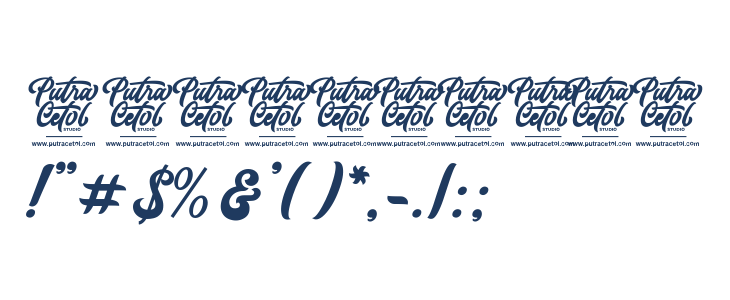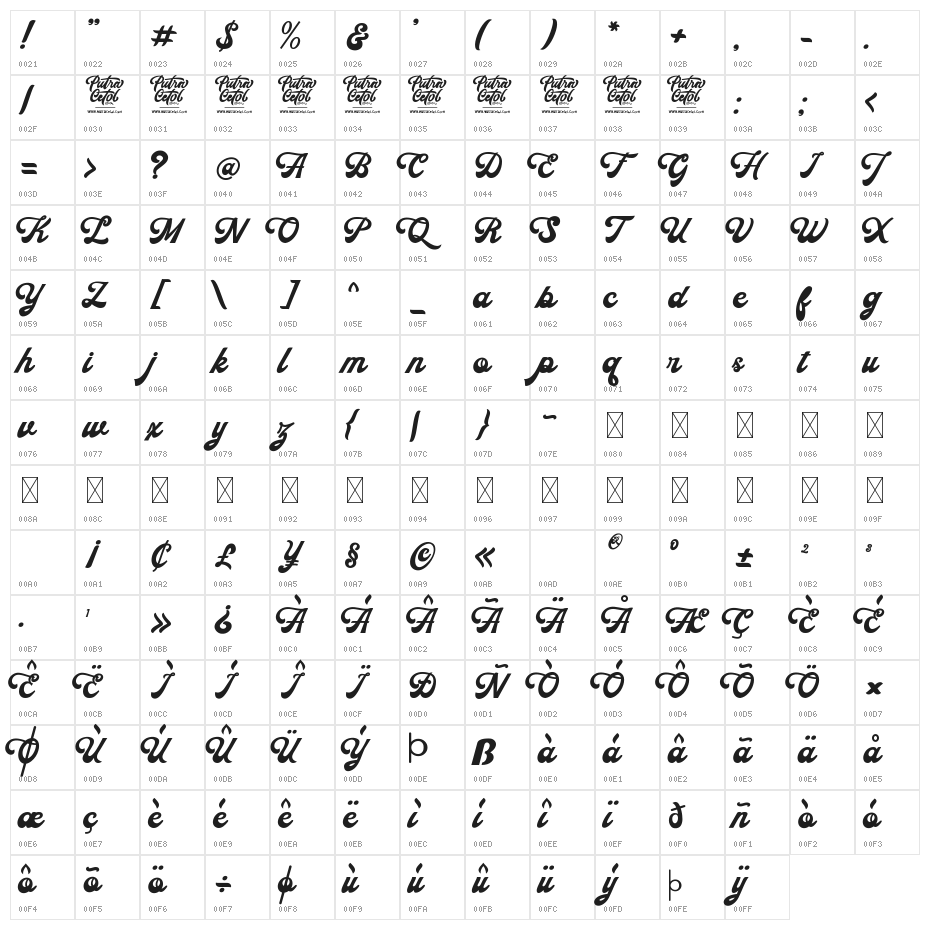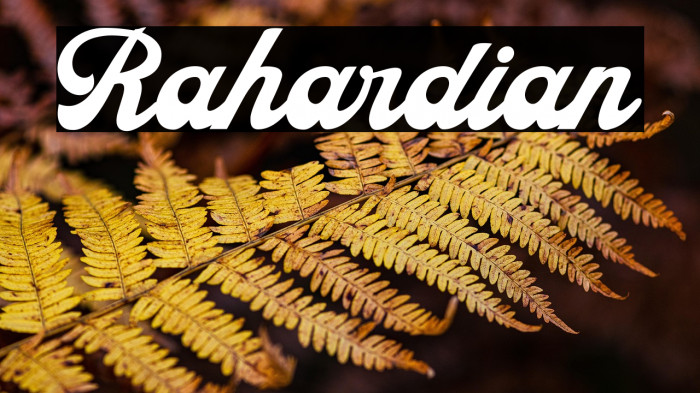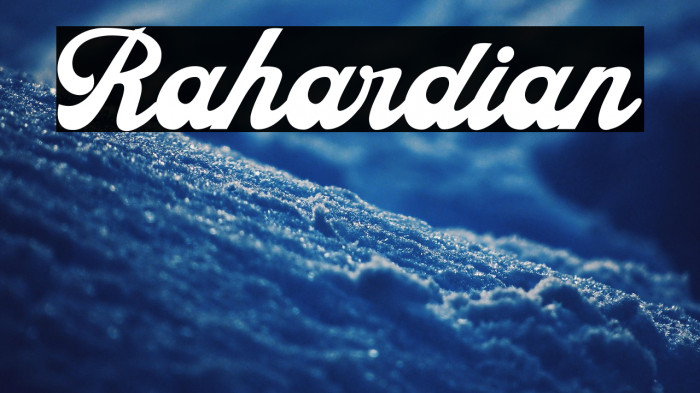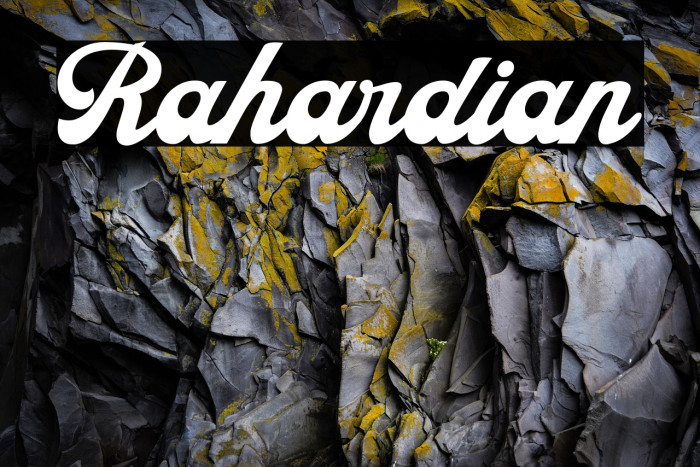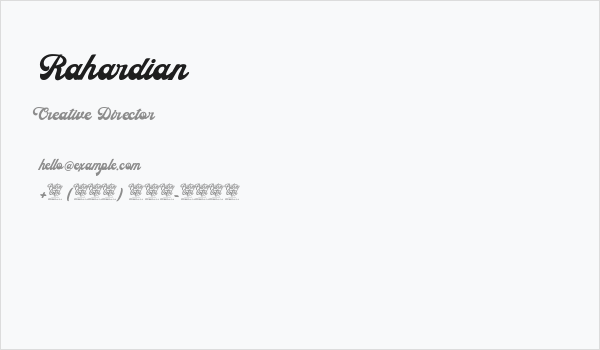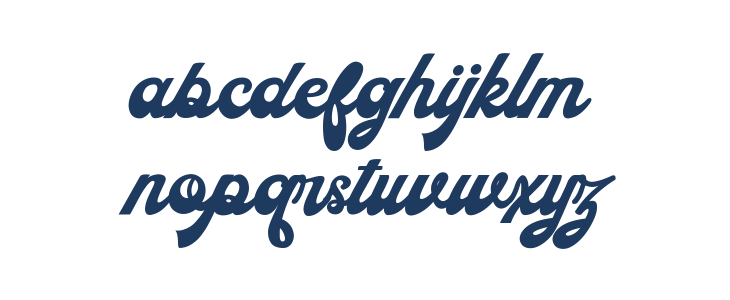
Rahardian Font
Rahardian Description
This font features a bold, cursive style with a strong emphasis on fluidity and elegance. The characters are connected, creating a seamless flow that is both dynamic and sophisticated. The uppercase letters are slightly larger and more pronounced, while the lowercase letters maintain a consistent size and style. The font includes a full set of numerals and a variety of special characters, each designed to complement the overall aesthetic. The strokes are thick and consistent, providing a sense of stability and confidence. This font is ideal for projects that require a touch of elegance and flair.
| Proposed Projects | Ideal for wedding invitations, branding, logos, and elegant signage. |